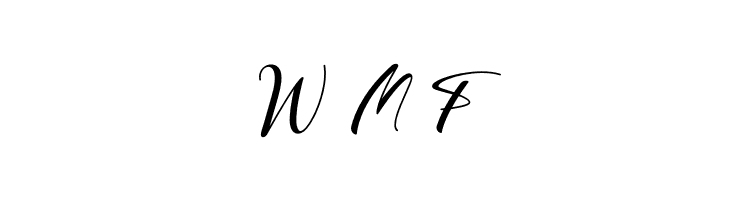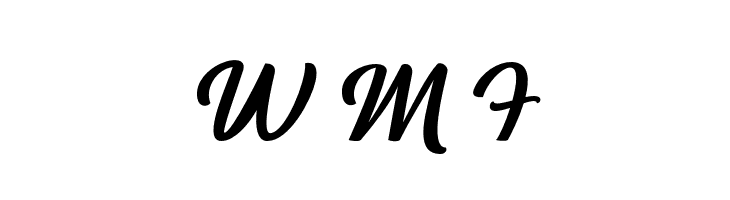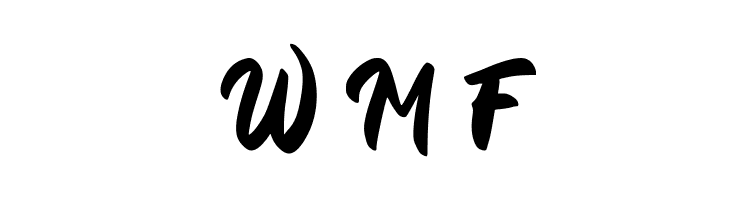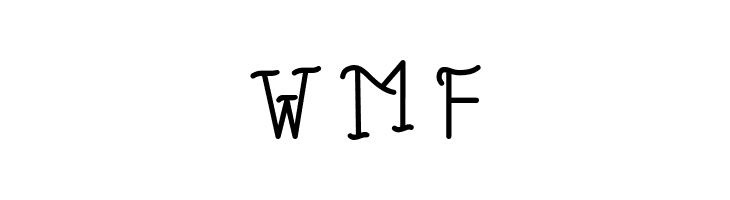
• Richardine
A bold, flowing script font with elegant curves and high contrast.
• Rootes
A playful, handwritten font with bold, rounded characters and unique flourishes.
• Rosario
A modern sans-serif font with clean lines and balanced proportions.
• Rosario Bold
A modern, bold font with clean lines and a professional appearance.
• Rosario Bold Italic
A bold, italicized font with a modern and elegant style, featuring well-defined characters and excellent readability.
• Rosario Italic
A modern, italic typeface with smooth curves and balanced proportions.
• Rosario-BoldItalic
A bold, italic font with a modern and elegant style.
• Royante Regular
A bold, elegant script font with flowing, cursive letterforms and high contrast.
• SansBetween
• Schmale Anzeigenschrift
A bold, gothic blackletter font with intricate details and a historical feel.
• Schmale Anzeigenschrift Zier
A bold, ornate Blackletter font with intricate flourishes and a historical feel.
• Scrawlly
A playful, hand-drawn style font with irregular, textured strokes.
• Scrawn AOE
A playful, hand-drawn font with quirky, artistic flourishes.
• ScritchyEye
A raw, hand-drawn font with jagged, energetic strokes.
• Sebaldus-Gotisch
A traditional Blackletter font with ornate, angular design and historical elegance.
• SeizaHir
• Selebgram Demo
A bold, expressive handwritten font with dynamic strokes and a playful style.
• Shameimaru Sans
• Shardee
A flowing, elegant script font with ornate swashes and flourishes.
• Shenoritha
A lively, cursive script font with fluid, interconnected letters.
• Shintyan
An elegant, flowing script font with smooth, cursive strokes.
• Shortcut
• Signotek